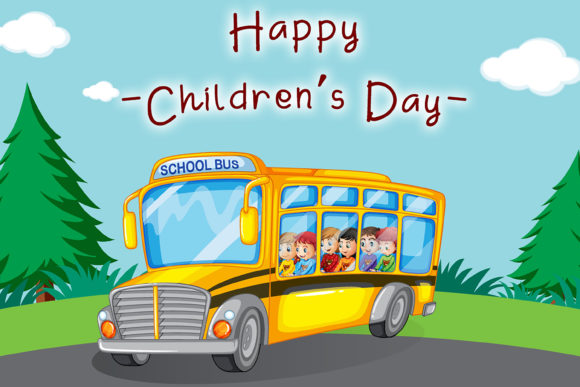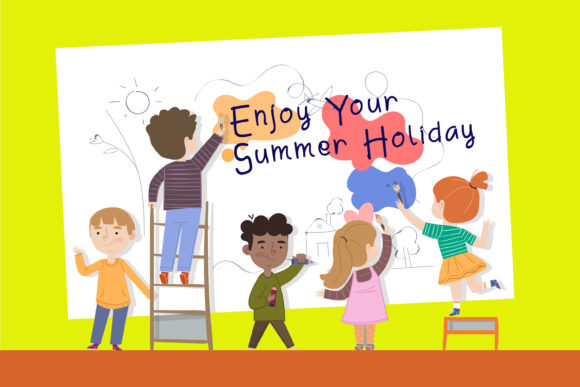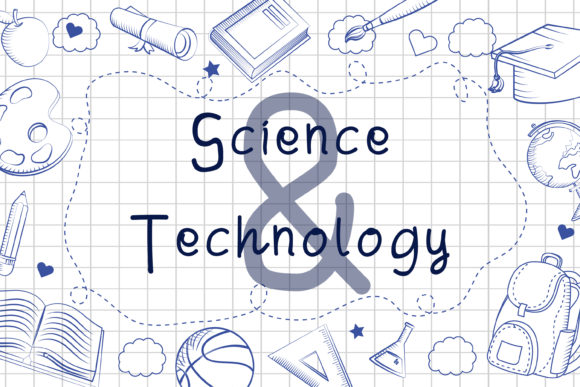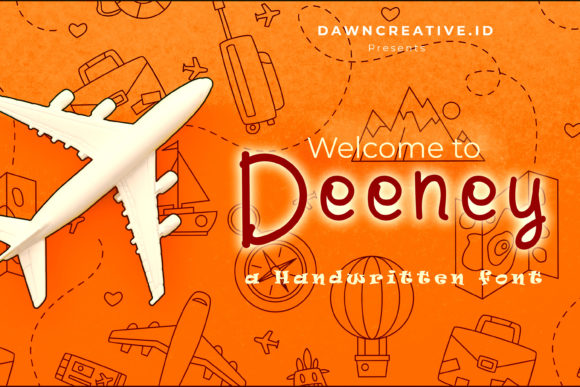
Discover the Elegance of Deeney Font: A Perfect Blend of Tradition and Modernity
In the world of typography, fonts play a crucial role in conveying messages, expressing emotions, and creating a lasting impression. Among the numerous fonts available, Deeney Font stands out for its unique blend of traditional influences and contemporary aesthetic. This elegant script font is designed to provide a sophisticated and subtle look, making it an ideal choice for designers and crafters seeking to add a touch of luxury to their projects.
The Distinctive Features of Deeney Font
Deeney Font is characterized by its well-balanced Latin details, which contain distinctive contrasts. These contrasts add a level of sophistication and elegance to the font, making it perfect for use in high-end designs, branding, and advertising. The font’s traditional influences are skillfully blended with modern elements, resulting in a unique and versatile typeface that can be used in a variety of contexts.
Achieve an Exquisite yet Subtle Look with Deeney
Deeney Font is designed to provide an exquisite yet subtle look, making it an excellent choice for designers who want to create a lasting impression without overpowering their message. The font’s elegant script style is perfect for use in:
- Logos and branding: Create a sophisticated and luxurious brand identity with Deeney Font.
- Wedding and event invitations: Add a touch of elegance and romance to your invitations with Deeney.
- Packaging and product design: Elevate your product design with a font that exudes luxury and sophistication.
- Advertising and marketing materials: Use Deeney to create eye-catching and memorable ads that stand out from the crowd.
Maximum Versatility with Deeney Font
One of the key benefits of Deeney Font is its maximum versatility. The font can be used in a variety of contexts, from digital designs to print materials. Its elegant script style makes it perfect for use in:
- Digital platforms: Use Deeney in website designs, social media graphics, and email marketing campaigns.
- Print materials: Deeney is perfect for use in brochures, flyers, and business cards.
- Stationery and paper goods: Add a touch of elegance to your stationery and paper goods with Deeney.
Tips for Using Deeney Font Effectively
To get the most out of Deeney Font, here are some tips for using it effectively:
- Pair Deeney with a sans-serif font: Create a beautiful contrast by pairing Deeney with a sans-serif font.
- Use Deeney in headlines and titles: Deeney is perfect for use in headlines and titles, where its elegant script style can shine.
- Experiment with font sizes and colors: Play around with different font sizes and colors to create a unique look that suits your design.
In conclusion, Deeney Font is a distinct and elegant script font that blends traditional influences into a contemporary aesthetic. Its well-balanced Latin details contain distinctive contrasts, making it perfect for use in a variety of contexts. With its exquisite yet subtle look and maximum versatility, Deeney Font is an excellent choice for designers and crafters seeking to add a touch of luxury to their projects.
Whether you’re designing a logo, creating a brand identity, or simply looking for a font that exudes elegance and sophistication, Deeney Font is an excellent choice. So why not give Deeney a try and experience the power of elegant typography for yourself?